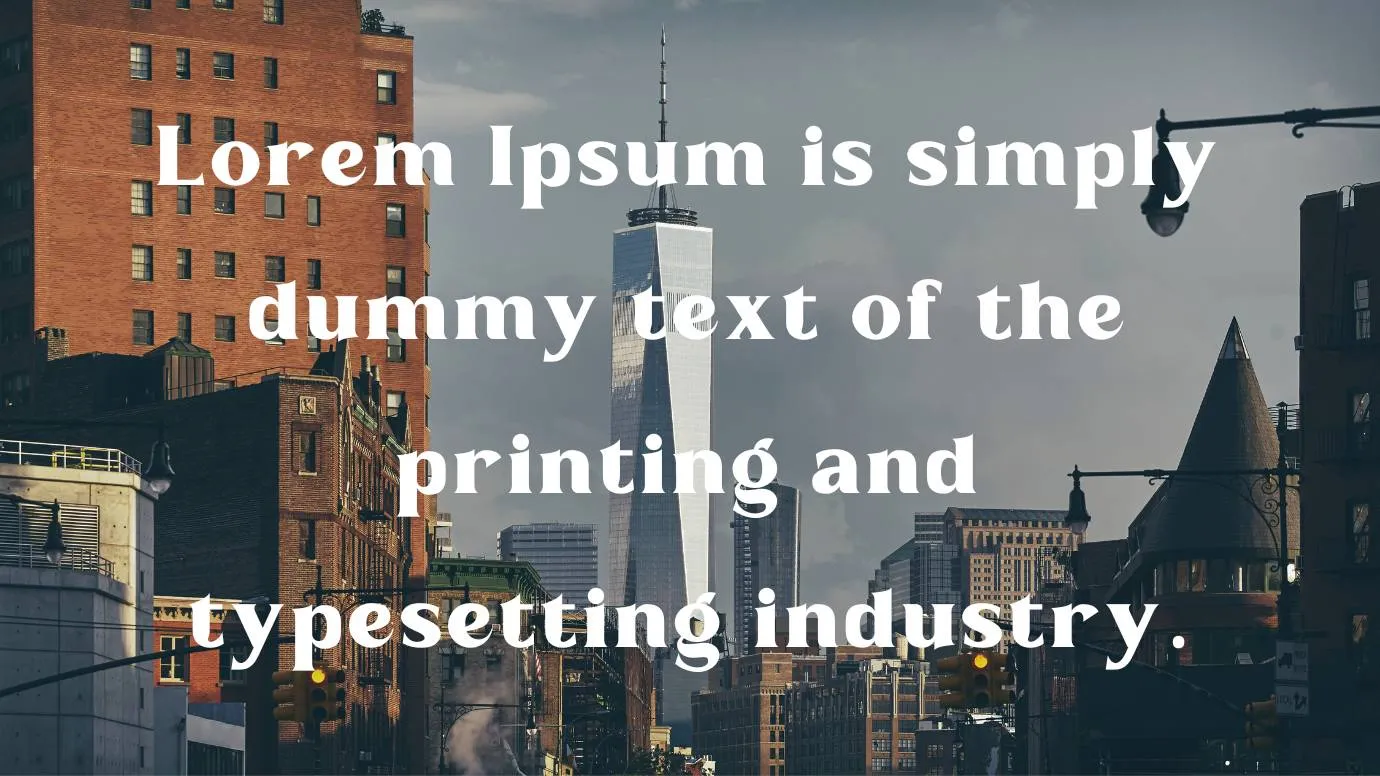
RTSTD designed this unique text style. It has a highly appealing and surprising appearance that adds to the curiosity of your projects.
This serif typeface was used by many designers in simple projects, and they enjoyed tremendous success all around the world. They are well-known in the font industry and have produced a number of other well-known fonts.
With this style, you can make beautiful tattoo designs. As well as printing t-shirts and banners, it can also be used for designing logos and creating banners. Create unique designs by pairing this with gloucester font.
There are many uses for this stunning font family, including titles, captions, and headings. You’ll get a rustic look with its unique characters.
You will get a pleasing feel with this font. Many things can be done with it, including invitation cards, video game graphics, and web designs. It would work well for a nature-themed project as well as some historical theme design.
A high-quality typeface is full of unique elements and perfect for use in signage, editorial design, and printing. This typeface can be used to create interesting designs, and logos for stores you can easily create with this style.
| Style | Serif |
Is Bongola Font good readability?
The text style has amazing readability that can be seen far away. Printing t-shirts and banners can also be created through this style.
Where we can use Bongola Font?
Several projects can be designed with this stylish typeface. There are many ways to use it, including book covers, artwork, and graphic designs.
What kind of font the Bongola Font is?
It is a serif text style each letter may have a different font style. This style is amazing for creating unique and attractive design projects.